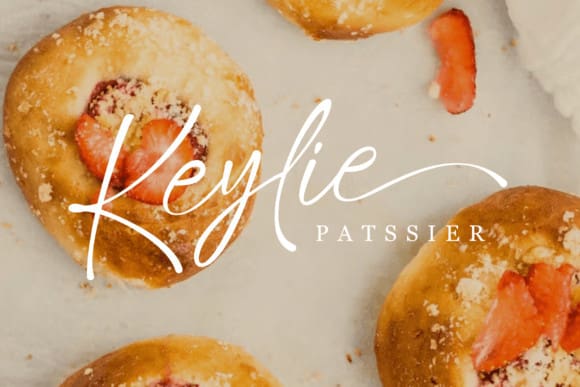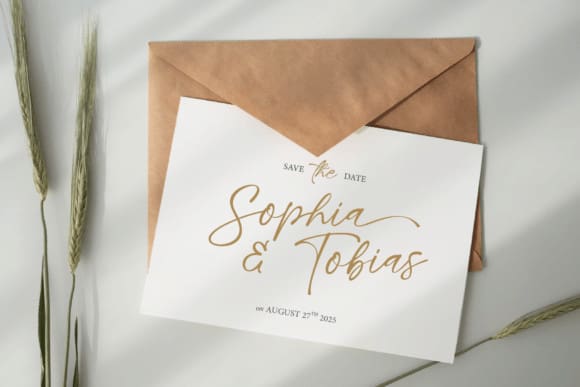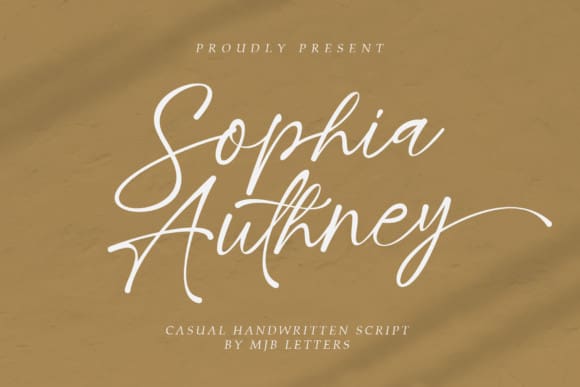
Sophia Authney Font
Sophia Authney Font, an exquisite calligraphy font that balances contemporary flair and classic sophistication flawlessly. This versatile typeface, ideal for branding, packaging, fashion, and beyond, is designed to imbue your creativity with an extra splash of refinement. Effective in designing vibrant logos, enchanting invitations, eye-catching social media visuals, or crafting any other masterpieces, ‘Sophia Authney’ elevates your work into a realm of unique charm and sophistication, enabling it to resonate powerfully and elegantly.